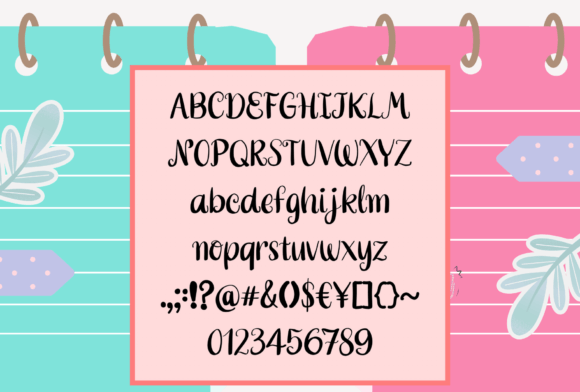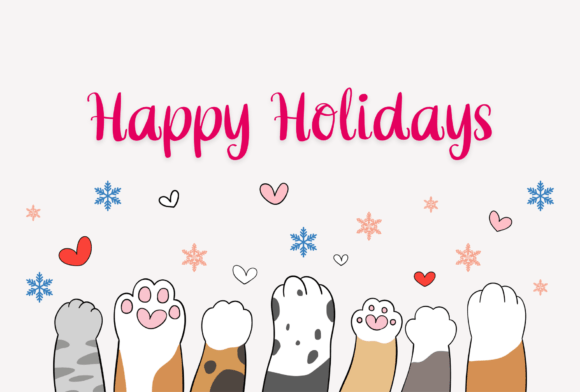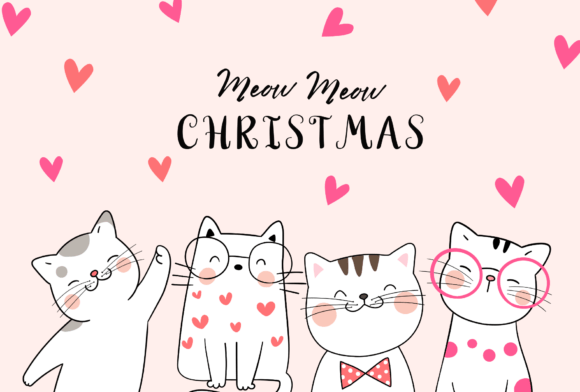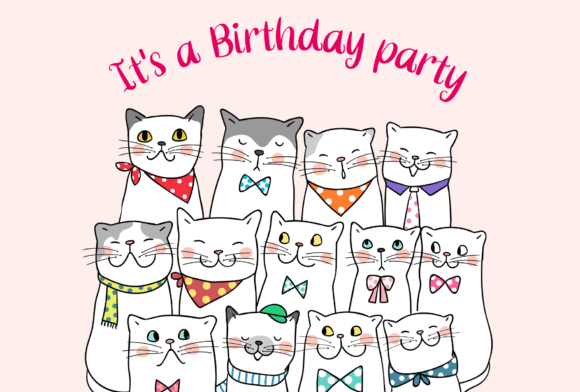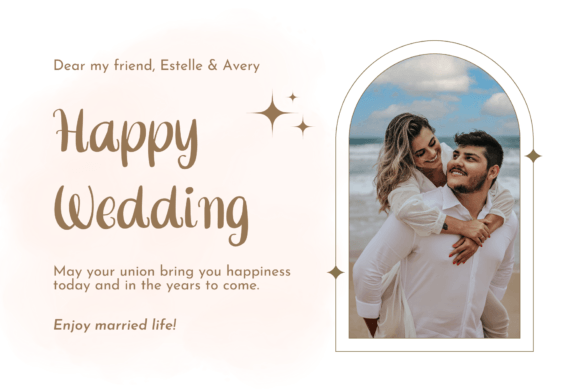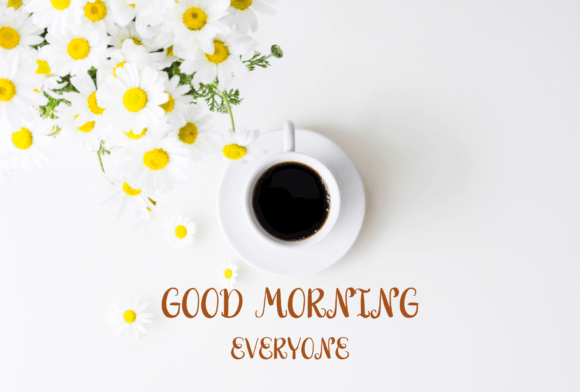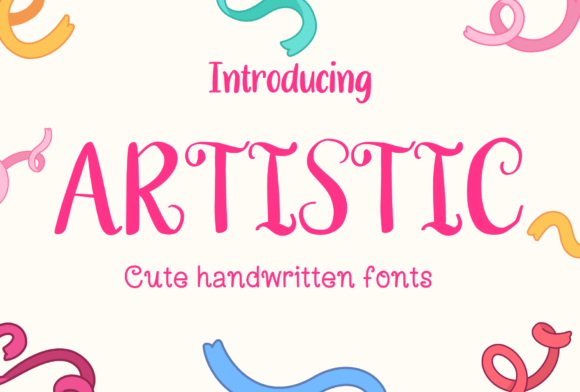
Getting Creative with Artistic Expressions
Have you ever been stuck in a design rut, scrolling through fonts for hours, trying to find the perfect one to convey the emotions of a special moment? I know I have! Whether it’s a birthday surprise or a heartfelt anniversary message, the right font can make all the difference. For designers, the quest for the perfect font is a never-ending journey, and that’s where the beautiful Artistic Font comes in.
This charming, handwritten font is designed to add a touch of whimsy and romance to any project. Perfect for birthday cards, Mother’s Day cards, and Christmas cards, the Artistic Font is a go-to choice for designers who want to create something truly special. Its versatility extends beyond paper, too, making it ideal for products like pillows, stickers, and T-shirts.
Artistic Font Key Features
Designer Review: Artistic Font
I recently had the chance to work with the Artistic Font, and I must say it’s a mixed bag. Here’s what I liked and didn’t like.
- Unique and creative style: The Artistic Font has a distinct, hand-painted feel that can add a touch of whimsy to any design.
- Good for creative projects: If you’re working on a project that requires a lot of personality and flair, the Artistic Font is a great choice.
- Readability issues: The font’s unique style can sometimes make it difficult to read, especially for longer blocks of text.
- Not ideal for body text: While the Artistic Font is great for headings and titles, it’s not the best choice for body text, as it can be overwhelming.
Overall, I think the Artistic Font is a great choice for designers who want to add some personality to their projects. However, it’s not a one-size-fits-all solution, and it’s best used in moderation. With the right project, the Artistic Font can be a real showstopper – but use it sparingly to avoid overwhelming your audience.
Tips for Getting the Most Out of Artistic Font
Experiment with different font sizes, colors, and styles to create a unique and eye-catching design.
Pair the Artistic Font with other creative elements, such as illustrations or graphics, to add visual interest to your design.
Artistic Font is perfect for creative projects, such as:
Invitations and event materials
Branding and marketing materials
Graphic design and visual arts
Alternatives to Artistic Font for Designers
1. Lobster
Lobster is a modern, elegant script font ideal for headings, titles, and logos. It’s perfect for creating a sophisticated and luxurious feel in your designs. Compared to Artistic Font, Lobster has a more refined and polished look, making it suitable for high-end branding and advertising materials.
Pacifico is a beautiful, handwritten font that evokes a sense of relaxation and tranquility. It’s great for use in travel, lifestyle, and wellness branding, as well as in designs that require a touch of elegance and sophistication. Unlike Artistic Font, Pacifico has a more organic and natural feel, making it perfect for designs that require a sense of warmth and approachability.
Great Vibes is a modern, cursive font that’s perfect for creating a fun and energetic vibe in your designs. It’s great for use in youth-oriented branding, advertising, and social media materials. Compared to Artistic Font, Great Vibes has a more playful and dynamic feel, making it suitable for designs that require a sense of excitement and enthusiasm.